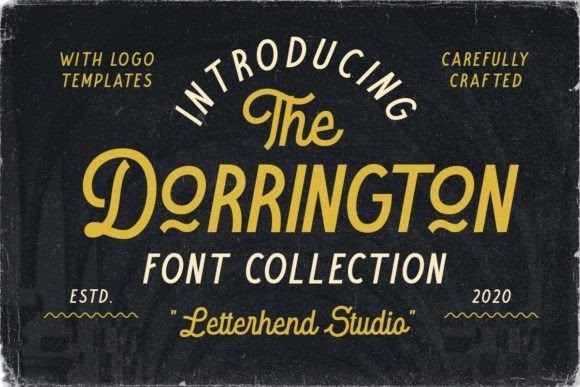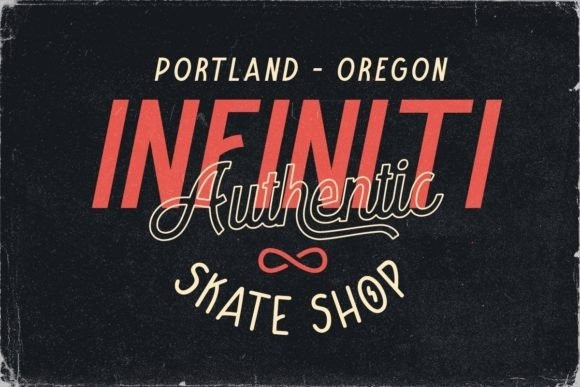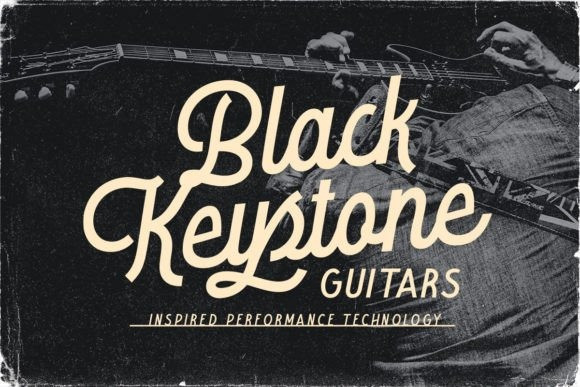
The Dorrington Trio Font
The Dorrington is a stylish and gorgeous font trio, combining two scripts and one sans serif font. It has beautiful and well-balanced characters and as a result, it matches a wide pool of designs.